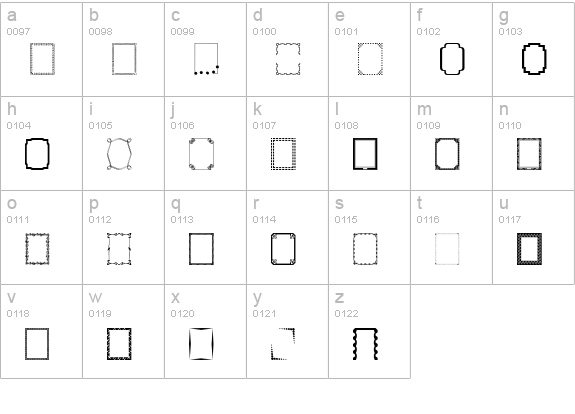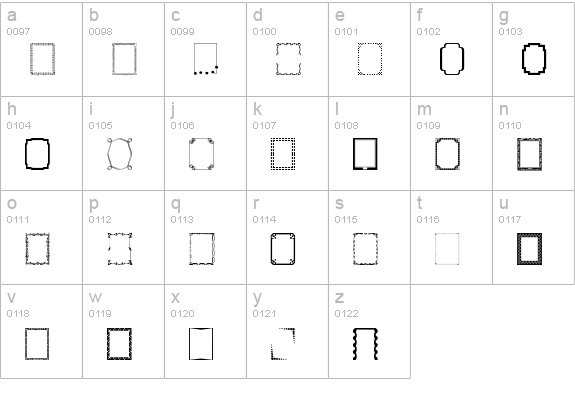
DesignerFramesTwo Font Details
DesignerFramesTwo font is a stunning display typeface that exudes elegance and sophistication. With its intricate details and artistic flair, this font is perfect for adding a touch of glamour to any design project. Its clean lines and stylish curves make it stand out from the crowd, making it a versatile choice for a wide range of creative applications. And the best part? DesignerFramesTwo font is completely free to download at FontsMarket.com! Whether you're working on a branding project, a poster design, or any other creative endeavor, this font is sure to make a bold statement. Don't miss out on the opportunity to elevate your designs with the timeless beauty of DesignerFramesTwo font. Download it today and see the difference it can make!